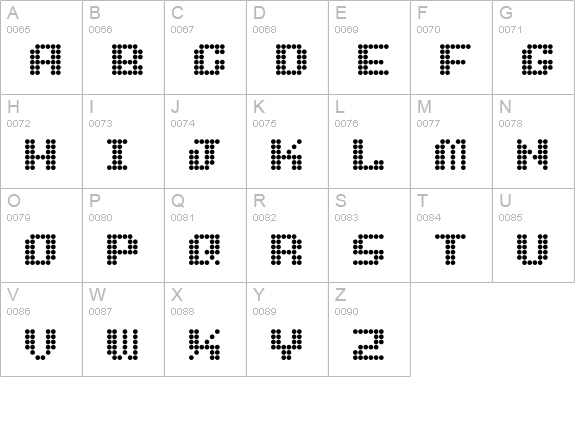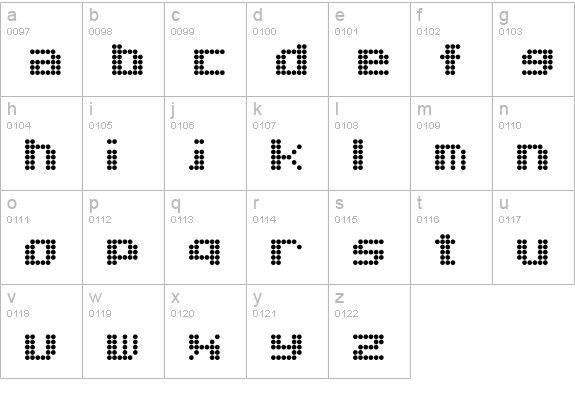
Dot Font Eng is a modern and stylish display font that is perfect for adding a unique touch to your projects. This font features a clean and sleek design with dots incorporated into each character, giving it a distinct and eye-catching look. Dot Font Eng is versatile and can be used for a variety of design projects, from logos to posters to social media graphics. Best of all, Dot Font Eng is available for free download at FontsMarket.com. This means you can easily access this font and start using it in your designs without any cost. Whether you are a graphic designer, a blogger, or a business owner looking to enhance your branding, Dot Font Eng is a great choice that will make your projects stand out. Download Dot Font Eng today and elevate your design game!